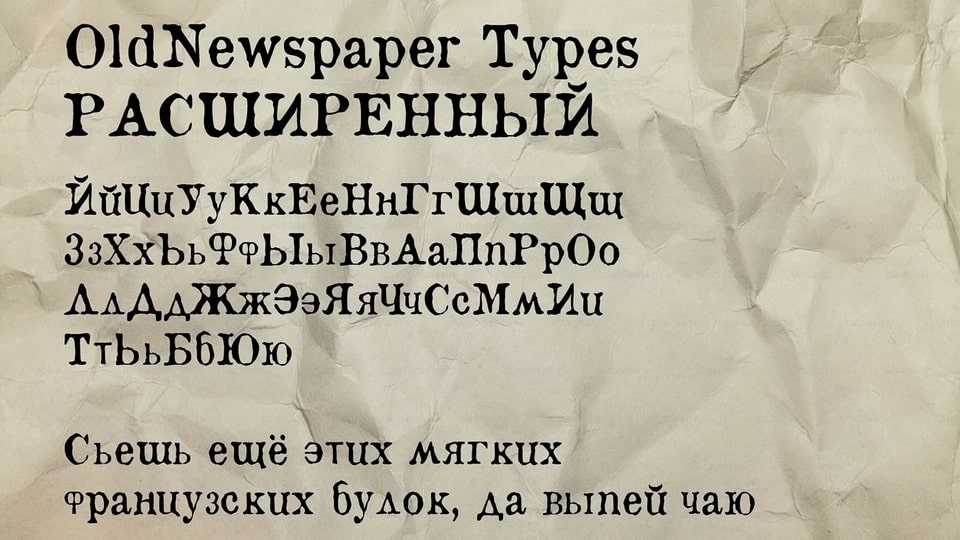
Download OldNewspaper Types font, a vintage serif typeface that revives the rough, imperfect charm of old print. Its slightly irregular letterforms mimic the texture of ink pressed into worn paper,
Designer: Daniił Jakowlew